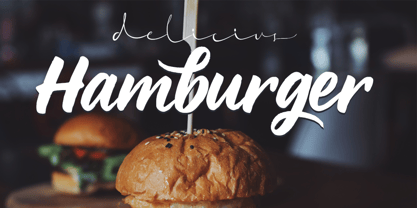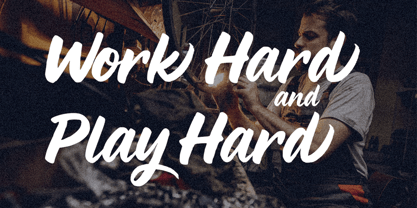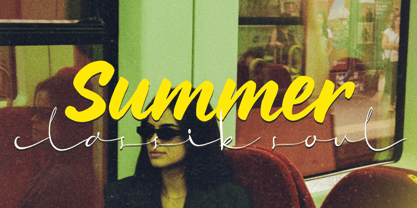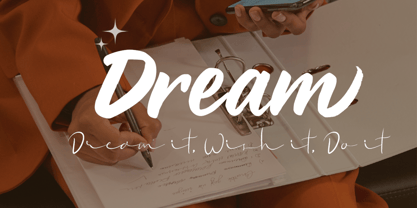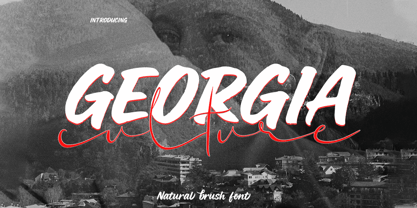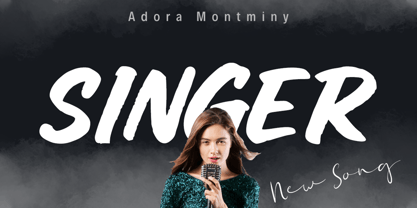
Georgia culture
by Cocodesign
The Georgia culture Font Family was designed by Muhammad Zaini and published by Cocodesign. Georgia culture contains 2 styles and family package options.
Introducing Georgia Culture: a font inspired by the dynamic, artistic spirit deeply ingrained in the rich tapestry of Georgian heritage. Boasting bold, sweeping strokes delicately entwined with an elegant flow, this font breathes life into every character it forms. Whether you're looking to imbue a sense of authenticity into your branding, enhance the visual allure of packaging, accentuate your editorial titles with a touch of elegance, or bring a creative quote to life, Georgia Culture is just the font for the mission. Ready to accompany you on your next creative venture, dive into the captivating world of Georgia Culture.